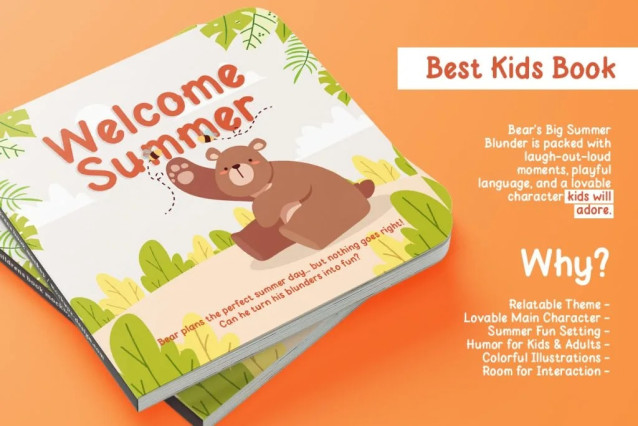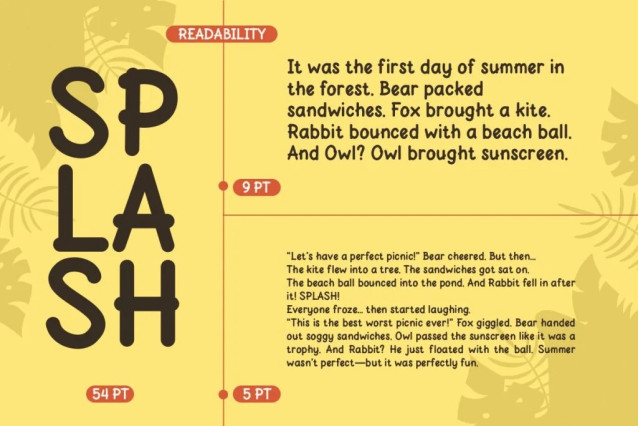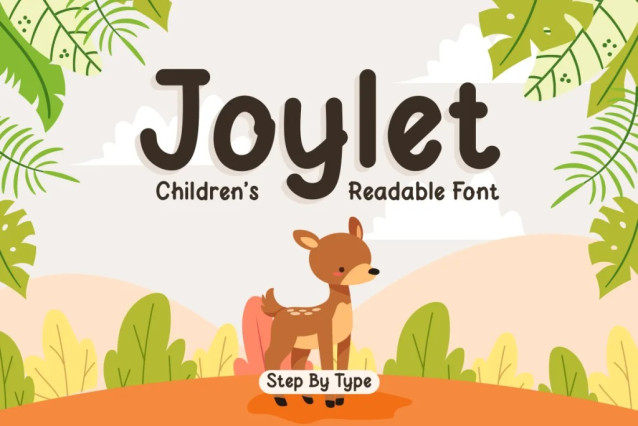
Joylet Font
Joylet Font is a kids handwriting font that radiates pure joy, playful, warmth, and youthful energy. With soft curves and a friendly flow, it’s designed to feel like it came straight from a child’s sketchbook—yet polished enough for professional use.Perfect for adding a charming, handmade touch to everything from classroom resources to brand visuals.